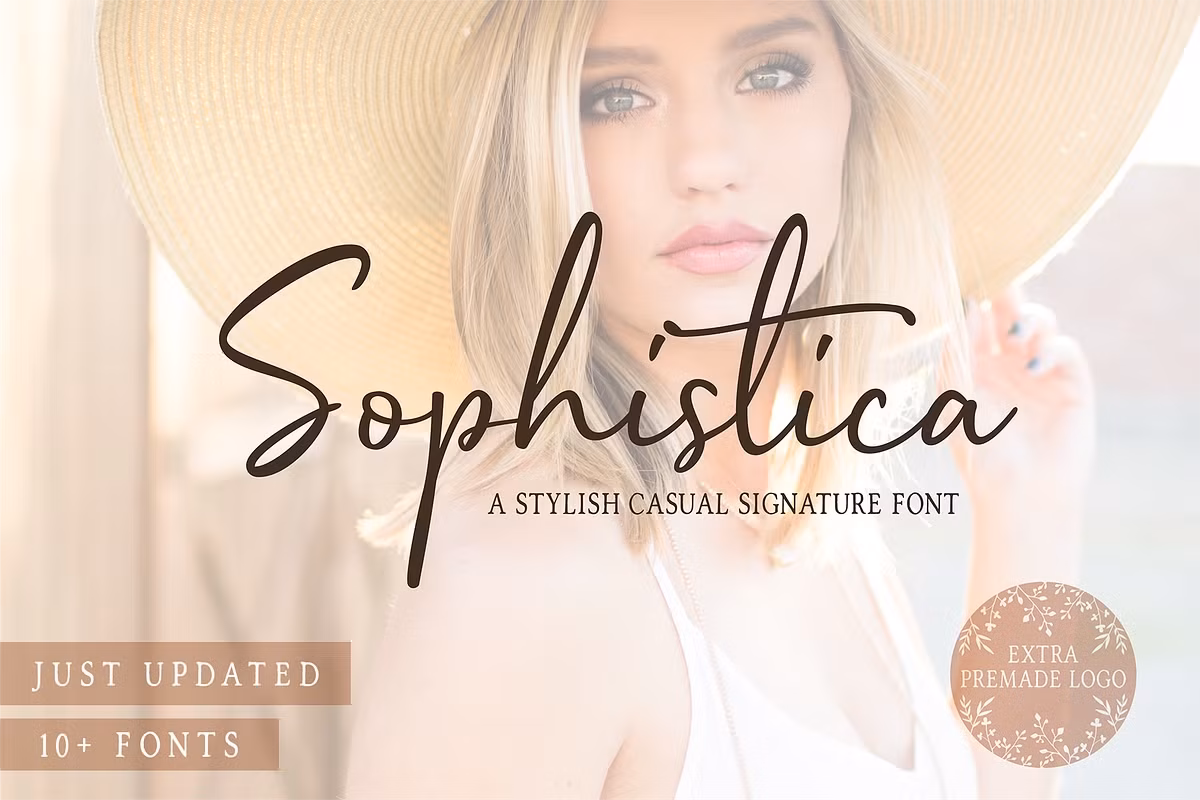
Sophistica - 10 Fonts & Ext Free Download is a versatile font collection that blends elegance and functionality across a range of serif, sans-serif, and script styles. Perfect for branding, editorial layouts, packaging, and social media design, this bundle offers endless creative possibilities. Please note that you must purchase this font for commercial use, but it is available as a free download for testing purposes. Elevate your design projects with the refined beauty of Sophistica - 10 Fonts & Ext Free Download, and explore a complete typographic system crafted for modern creatives.